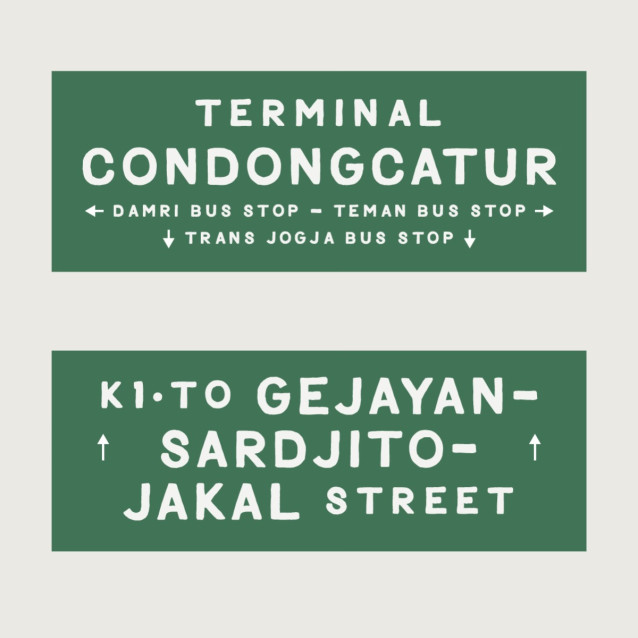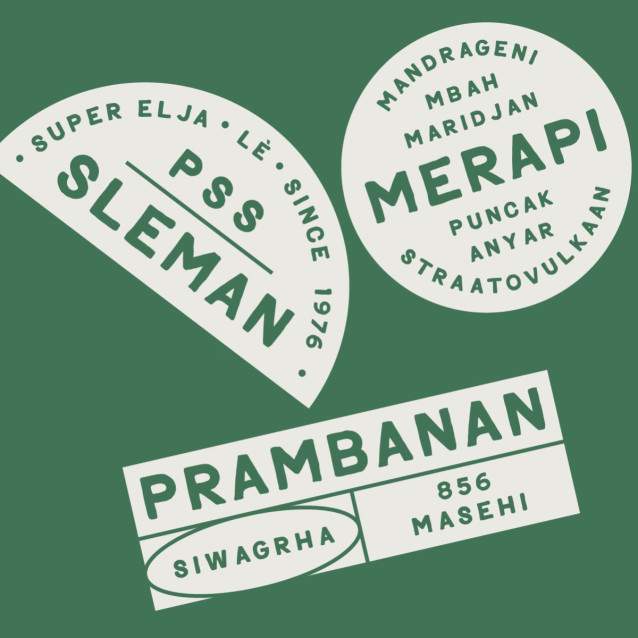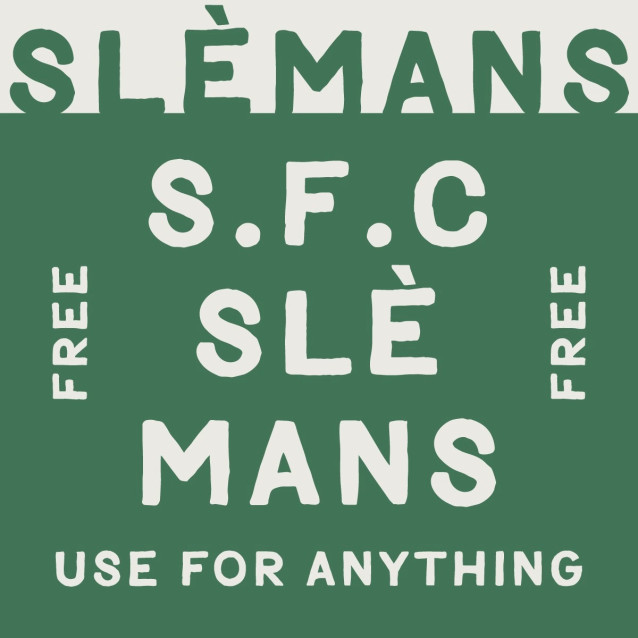
SFC Slemans Font
SFC Slemans. Born as one of our very first practice fonts when starting the type division. Raw, experimental, and honest, shared for free so you can see the process from the very beginning.